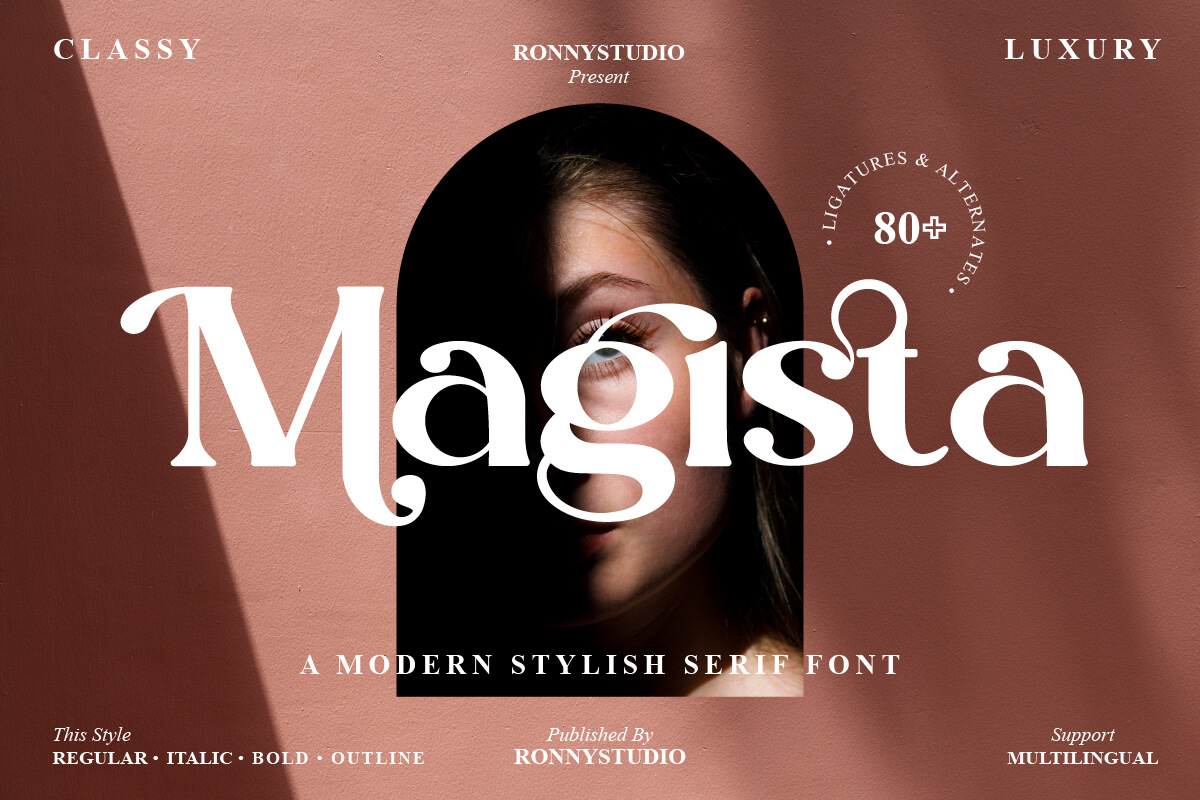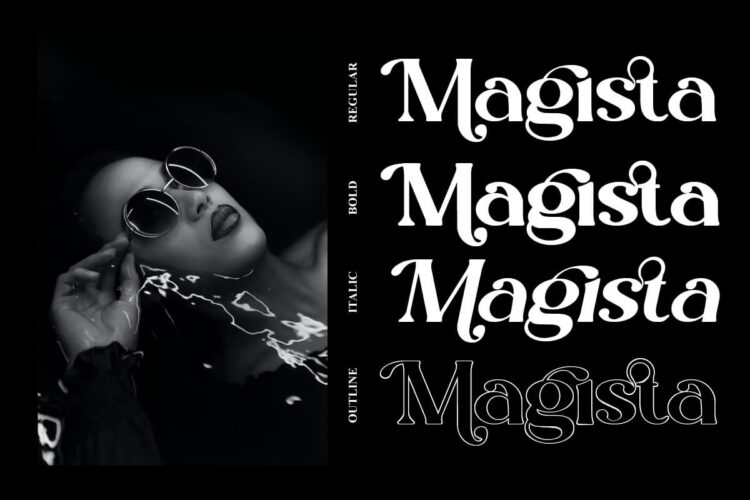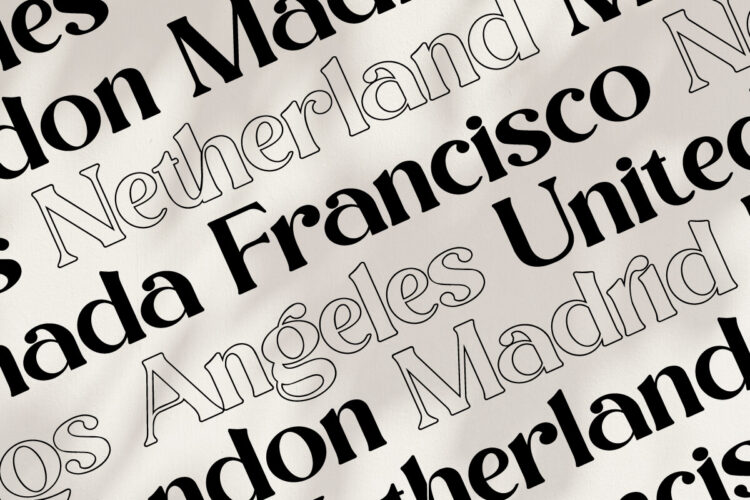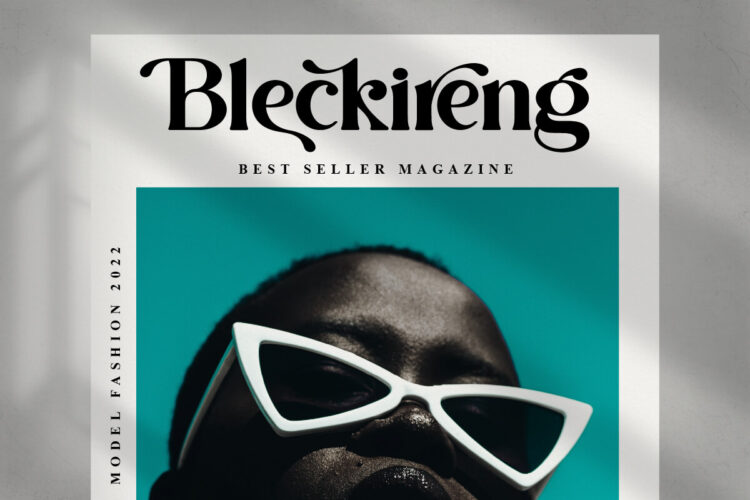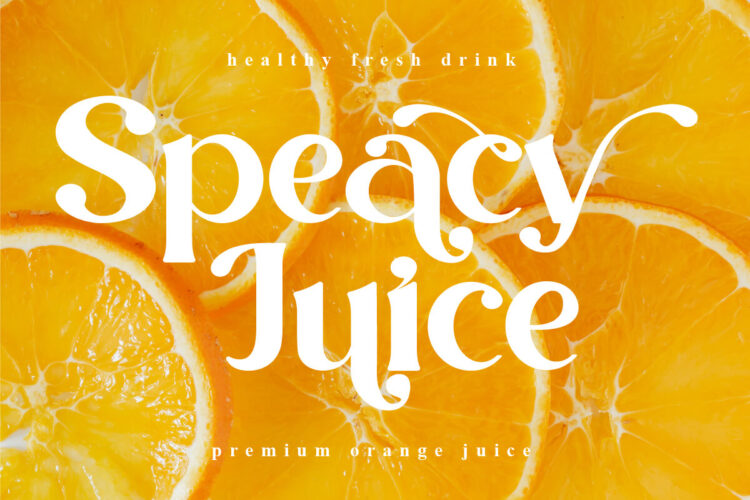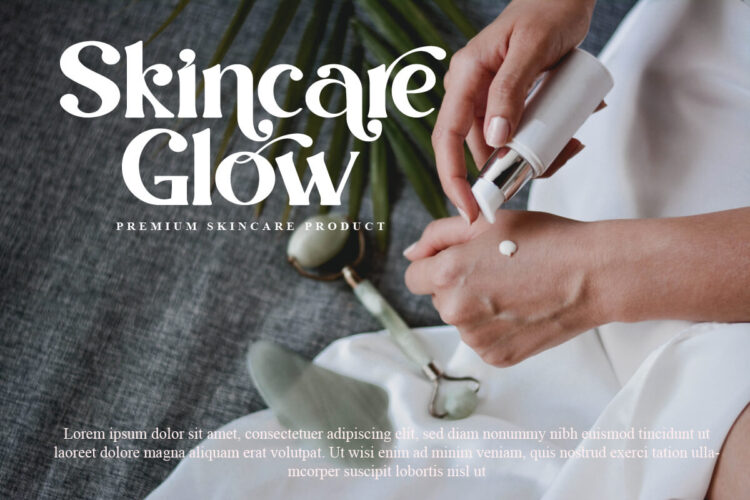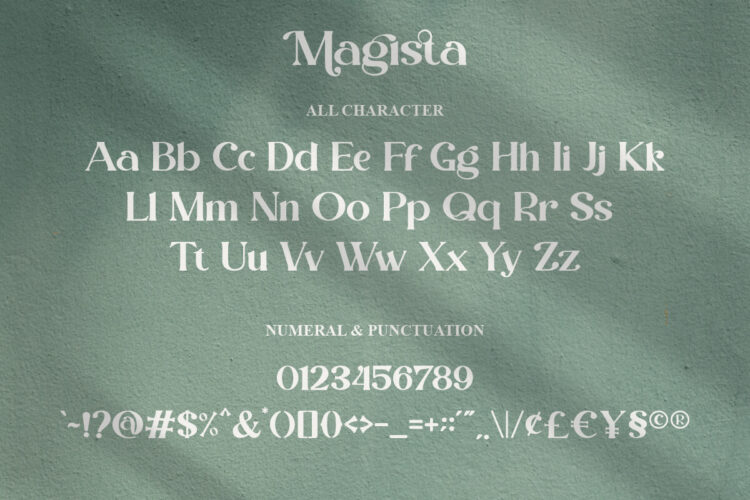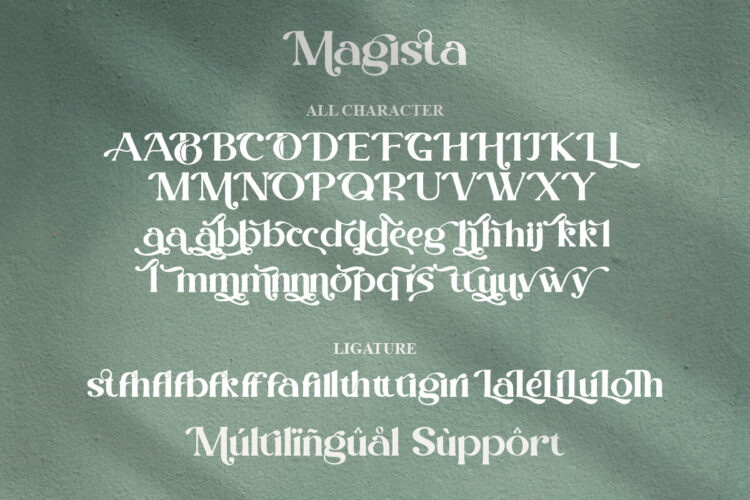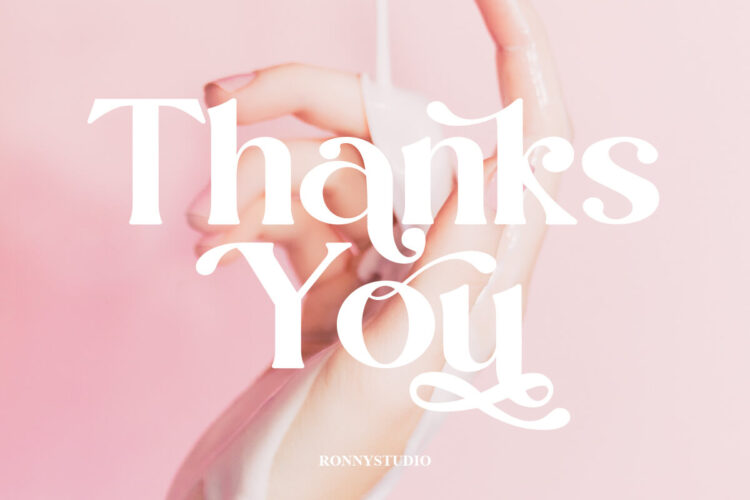
Modern Stylish Serif Font
Magista is an elegant and chic serif font. This font is impressive and features elegant and professionally shaped fonts, and as a result, it will easily match a variety of creations that require a different touch. Add it confidently to your projects, and you will love the results. This font is PUA encoded which means you can access all of the glyphs and swashes with ease!
• Uppercase & Lowercase
• Number & Punctuation
• Ligature & Alternate
• Multilingual Support
4 Style font :
• Regular
• Italic
• Bold
• Outline
Magista – Modern Stylish Serif Font